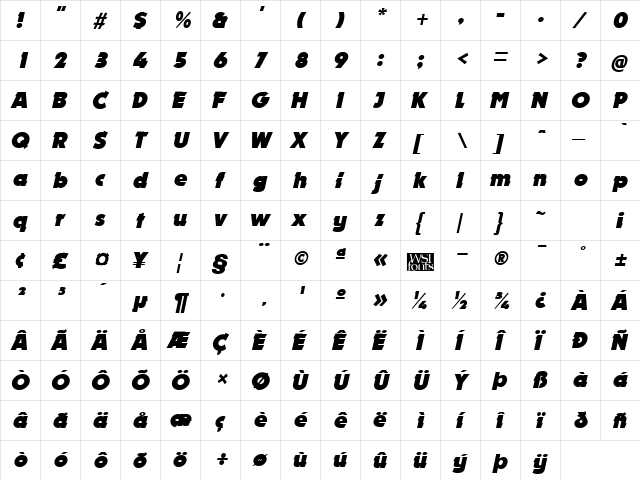
Nougat Italic Font Preview
Nougat Italic
Nougat Italic Font Details
Design Context for Nougat Typeface
Nougat is a composed and adaptable typeface that performs quietly and consistently across a wide range of design contexts. Its italic angle brings a sense of urgency and motion to the letterforms.